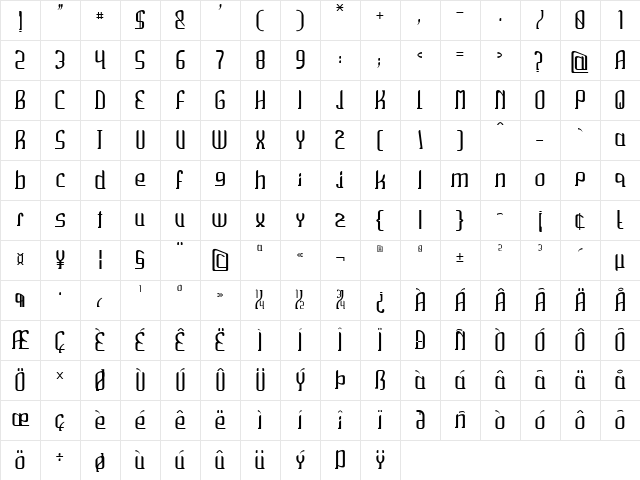
Wako Regular Free Font
Wako Regular
Foundry: Alberto Villanueva
Designer: Alberto Villanueva
Design Context for Wako
Wako is a composed and adaptable typeface that performs quietly and consistently across a wide range of design contexts.